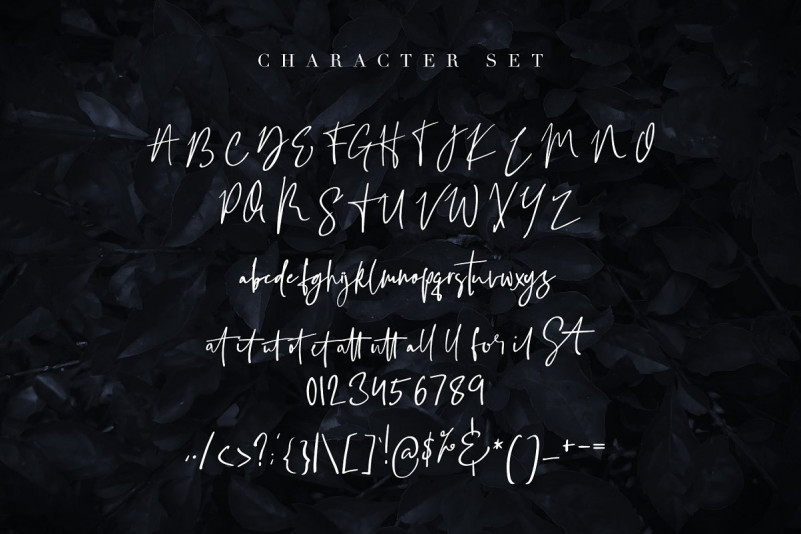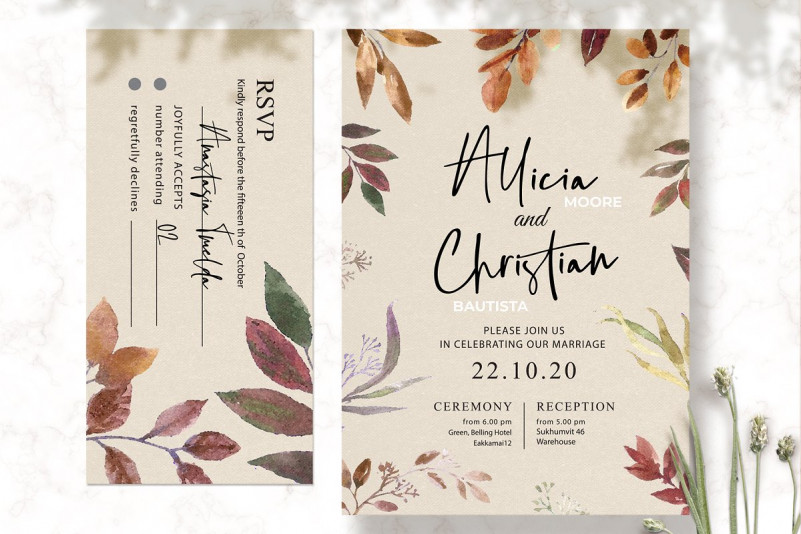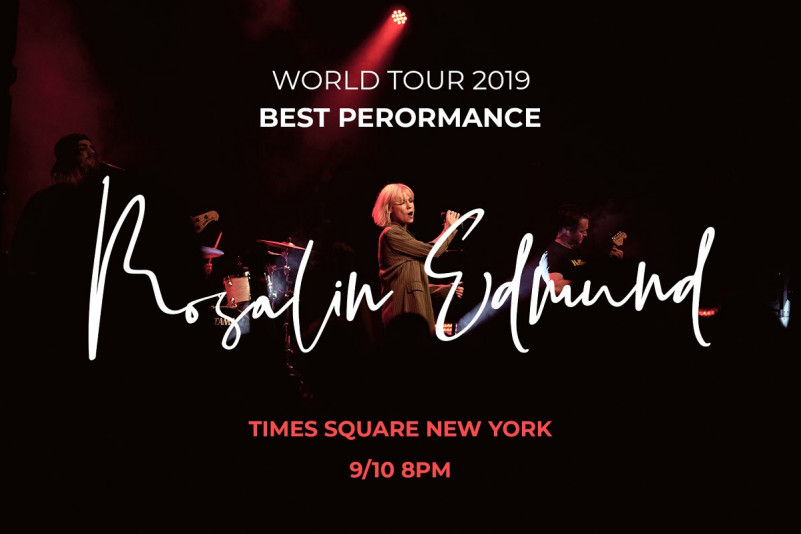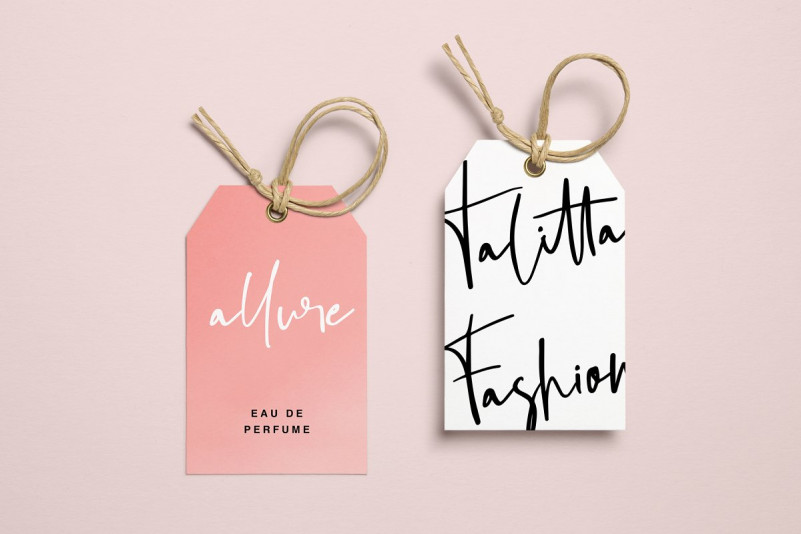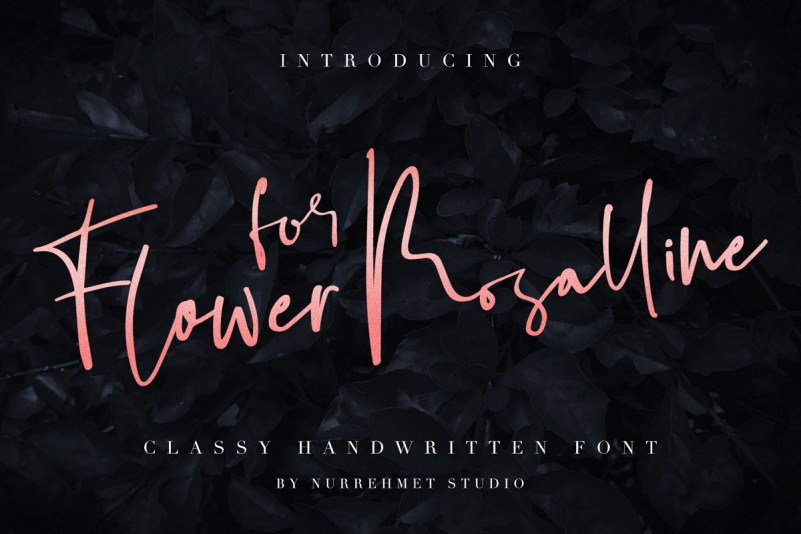
Flower for Rosalline Script Font
Introducing Flower for Rosalline Script Font. A fashionable and super-chilled new handwriting font script, a work that is purely a result of handwriting, has a natural characteristic! It is design and shared by Nurrehmet Studio. A stylish & expressive script font. It’s hand-drawn font and designed to perfectly re-create natural handwriting; It’s the perfect for stylish branding & logo projects, product packaging, handwritten quotes & wedding invitation.